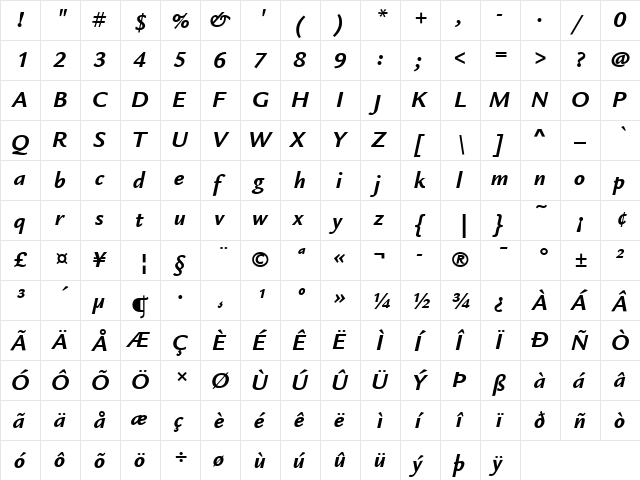
ITCLegacySans LT Book Bold Italic Font Preview
Design Context for ITCLegacySans LT Book Typeface
ITCLegacySans LT Book takes a measured approach to typography — its balanced proportions and neutral character make it a reliable workhorse for both digital and print work. The dynamic lean of this cut emphasises speed and emphasis in any layout. The heavy weight commands attention and anchors typographic hierarchies.
Pro Tip: Try ITCLegacySans LT Book for annotation and caption copy alongside an upright companion — the contrast in angle creates a dynamic but ordered typographic system.